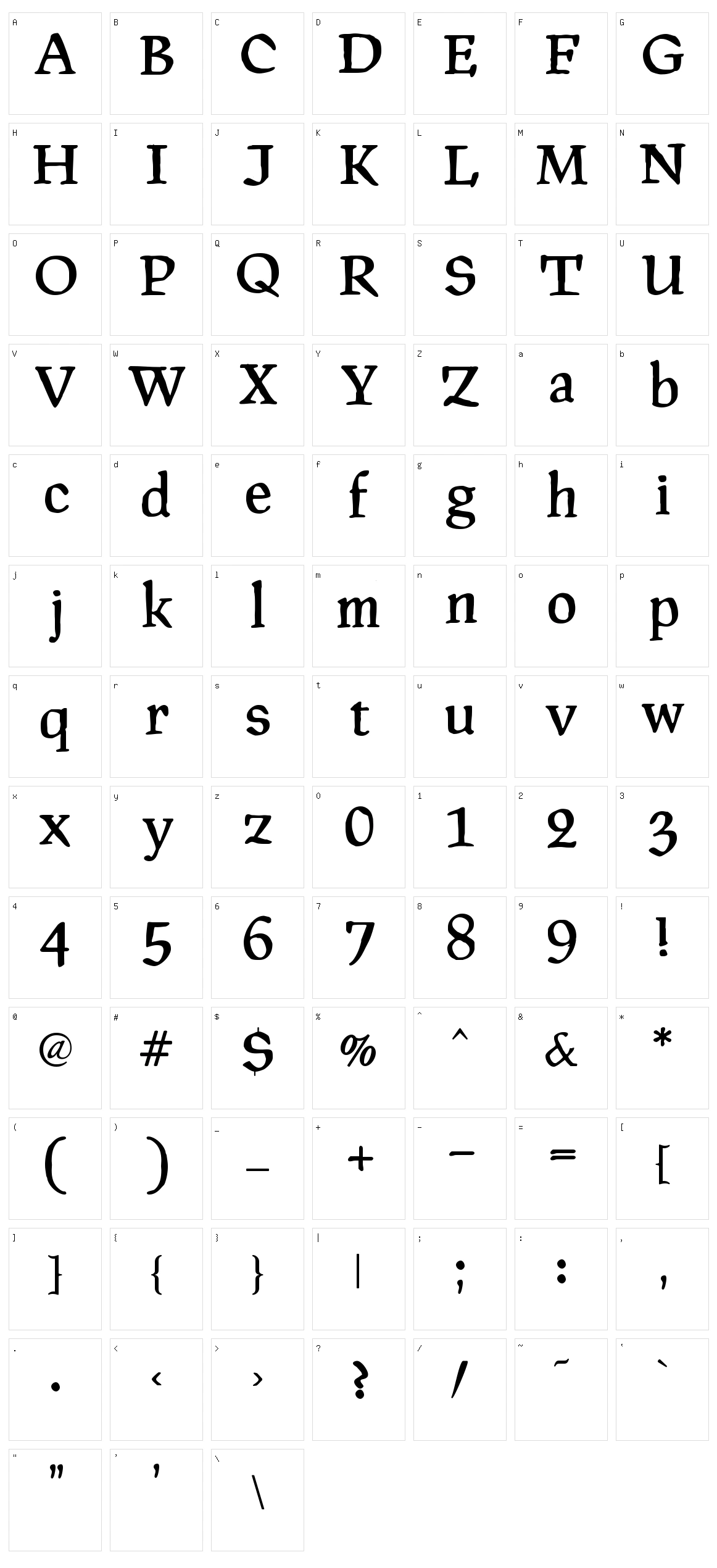
The free font PragRoman is carefully designed by Manfred Klein, showcasing a thoughtful balance of creativity and usability and falls under the Eroded font style. When you download the ZIP file, it contains only 42.51 KB of font files, making it lightweight and quick to download. Please review the license details below to understand permitted usage and distribution rights. If license information is not available, we recommend using this font for personal projects only or contacting the author directly for commercial usage permissions.